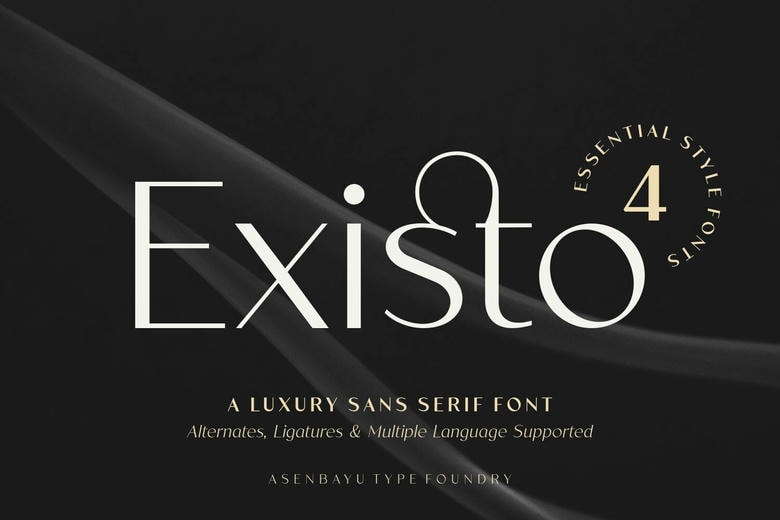
Existo Font
Existo is a carefully crafted typeface. It combines the clean lines of modern sans-serif fonts with hints of classic serif style. This mix gives the font a look that feels both new and timeless. Existo was created for high-end visual projects and stands out for its unique character.
It is minimal yet expressive, elegant yet confident. Its well-shaped letters give it a polished look, making it a great choice for projects that need both clarity and style.
Existo Sans Serif Font